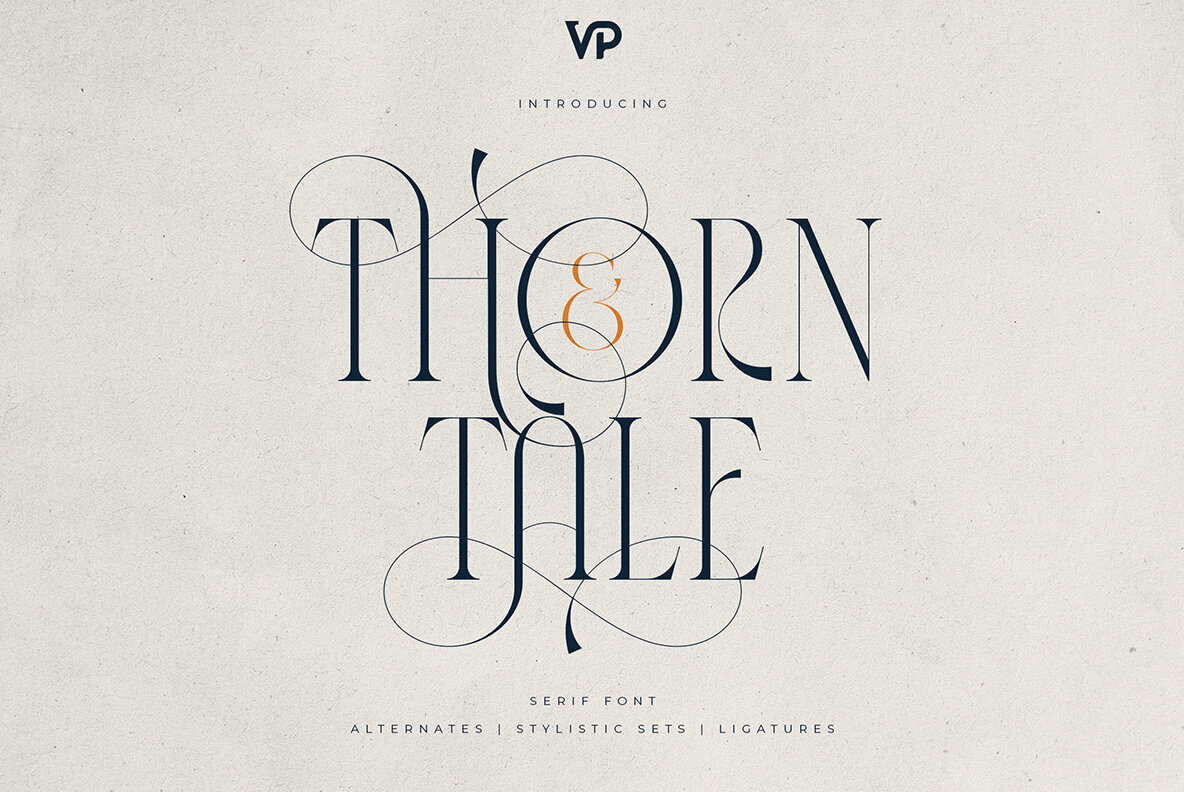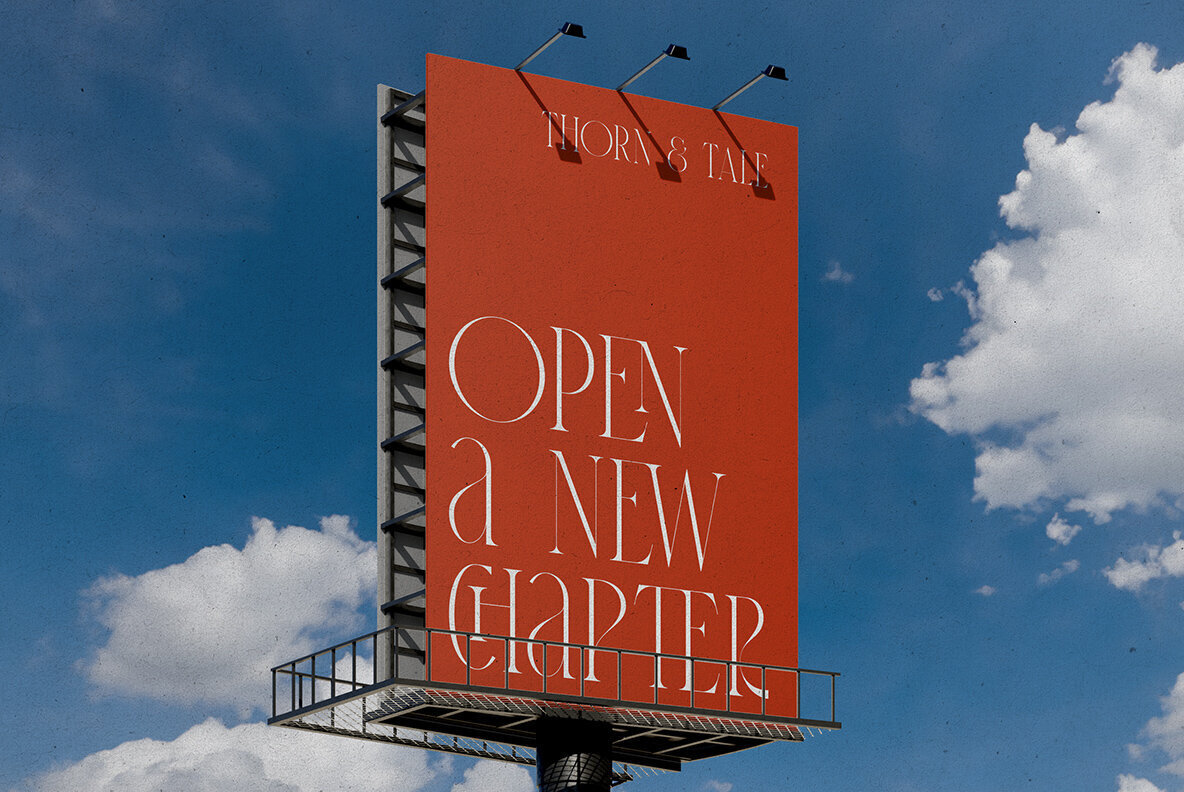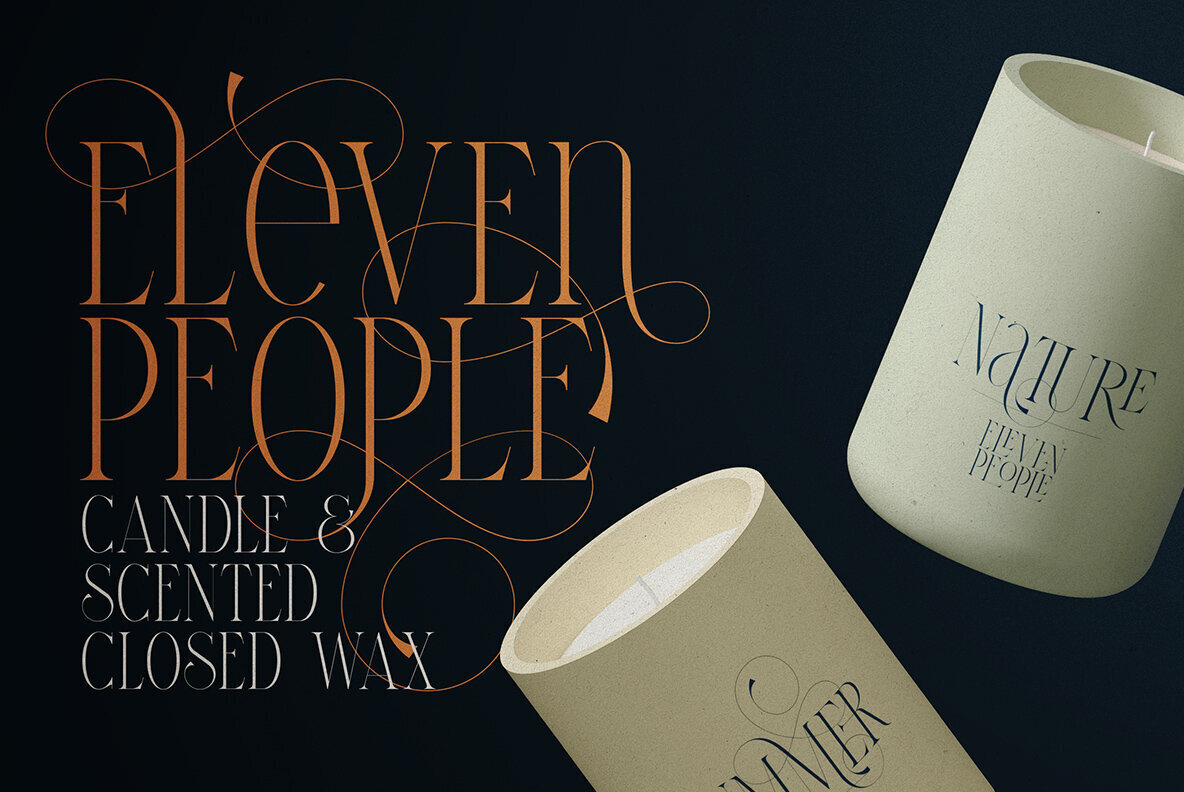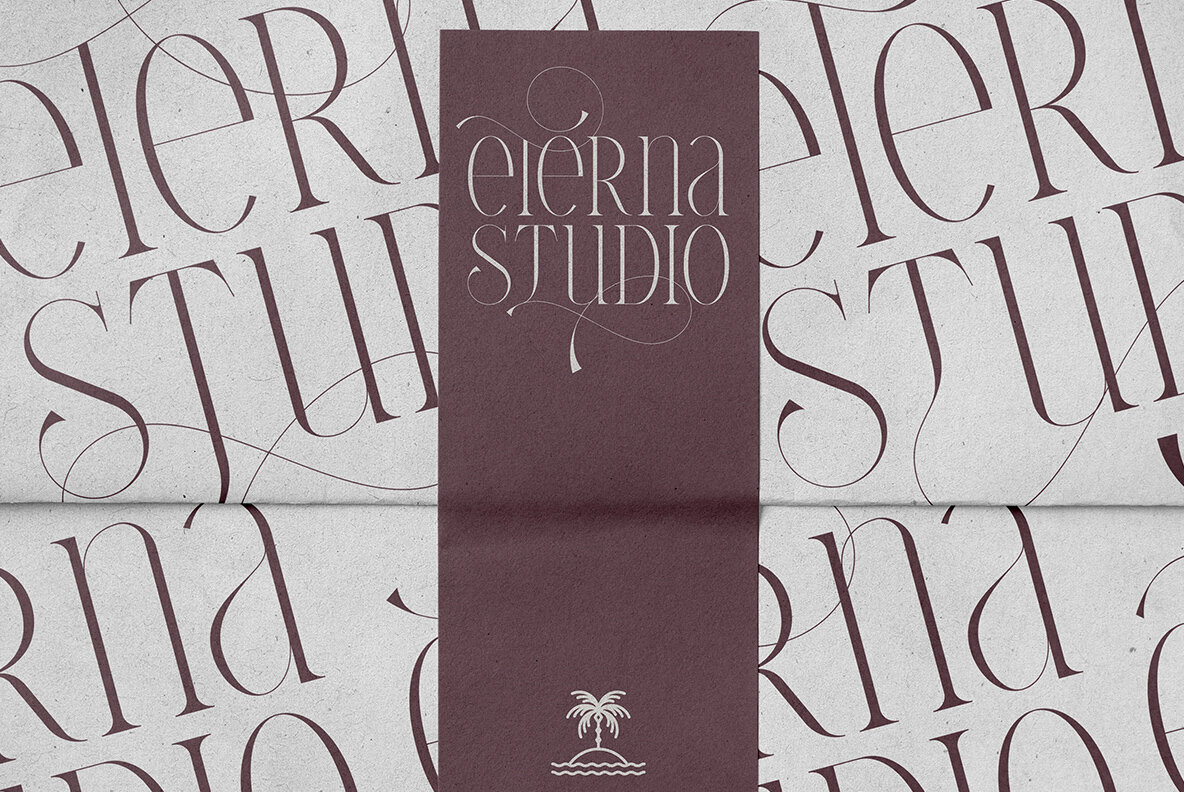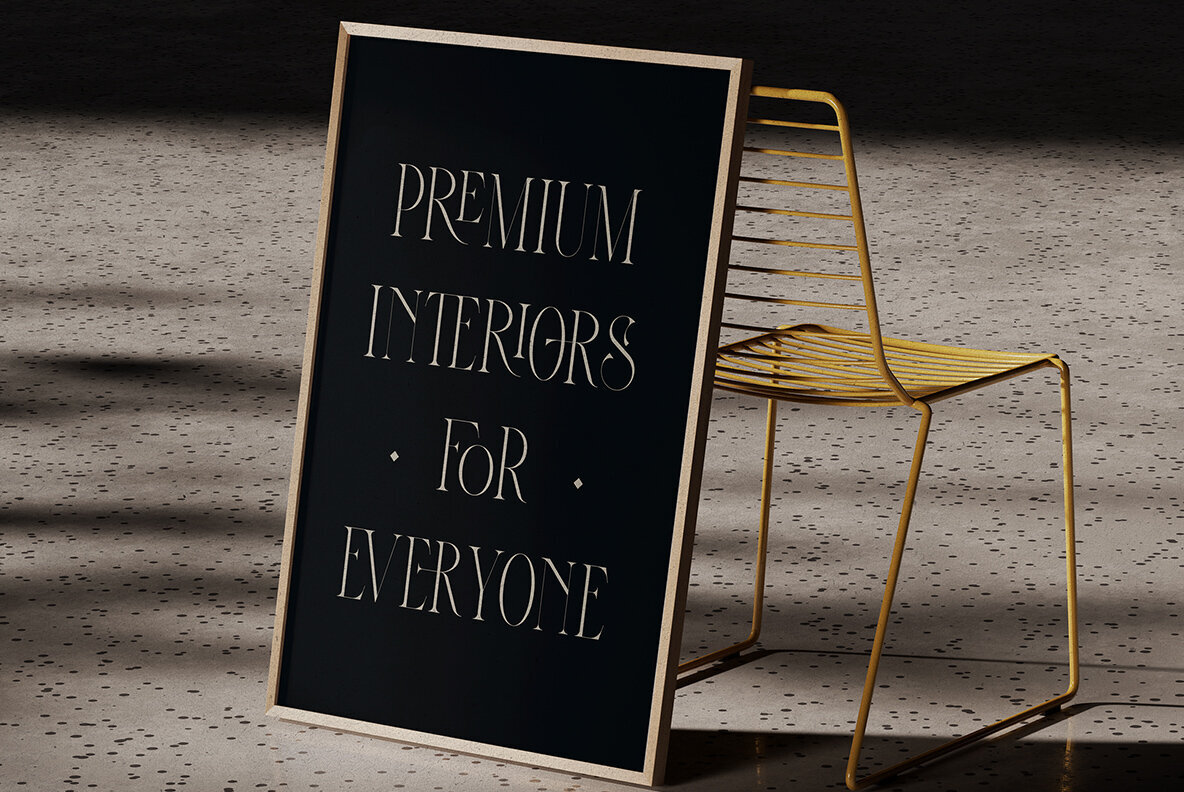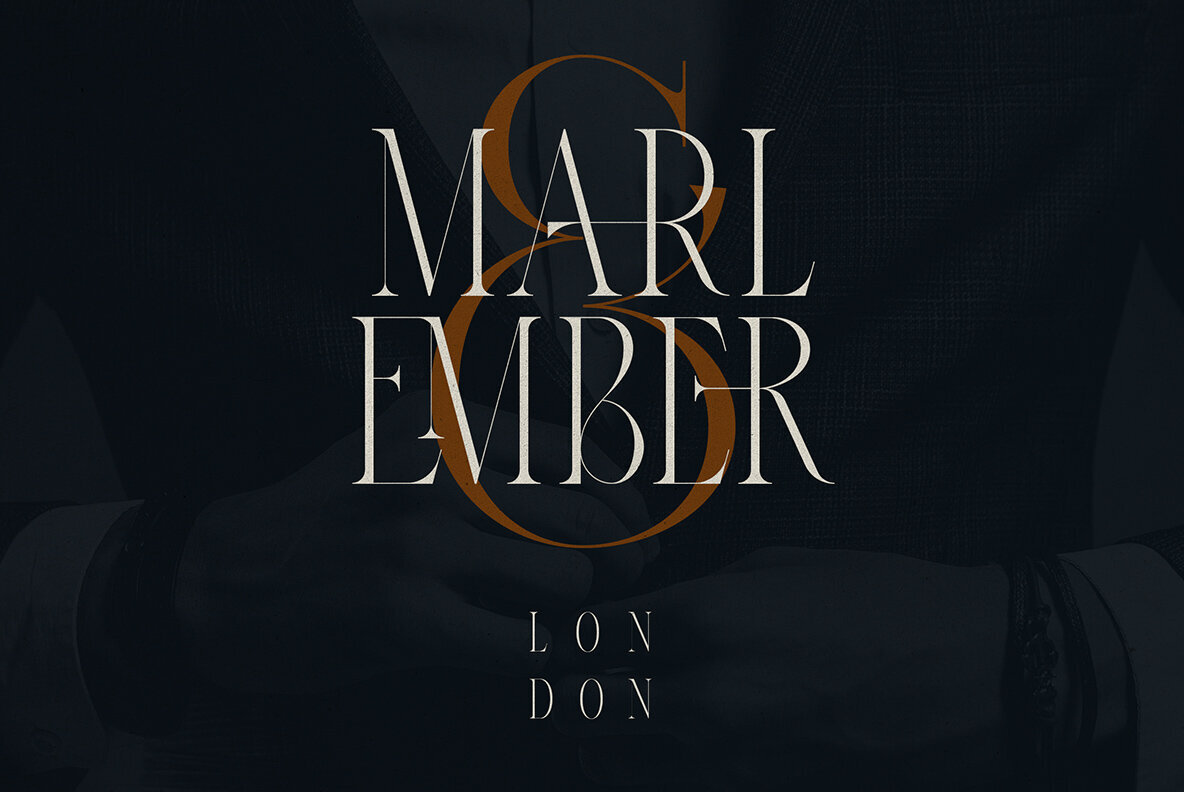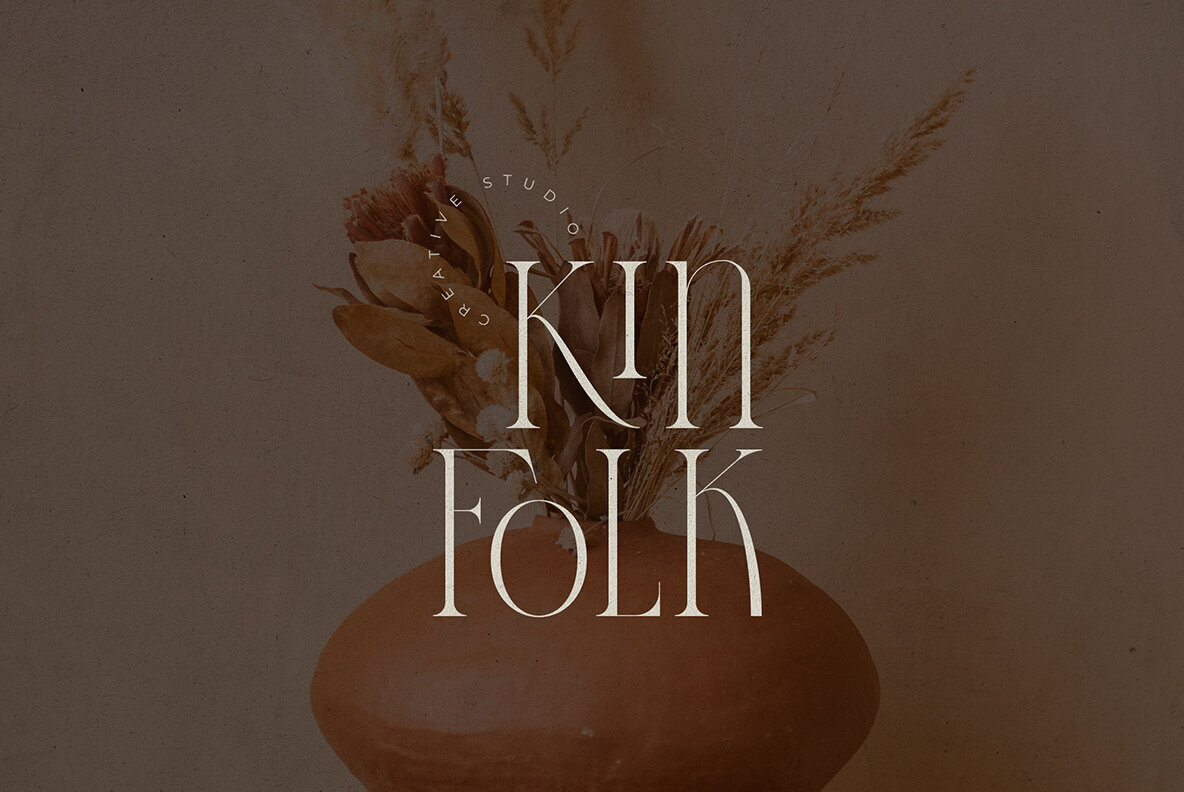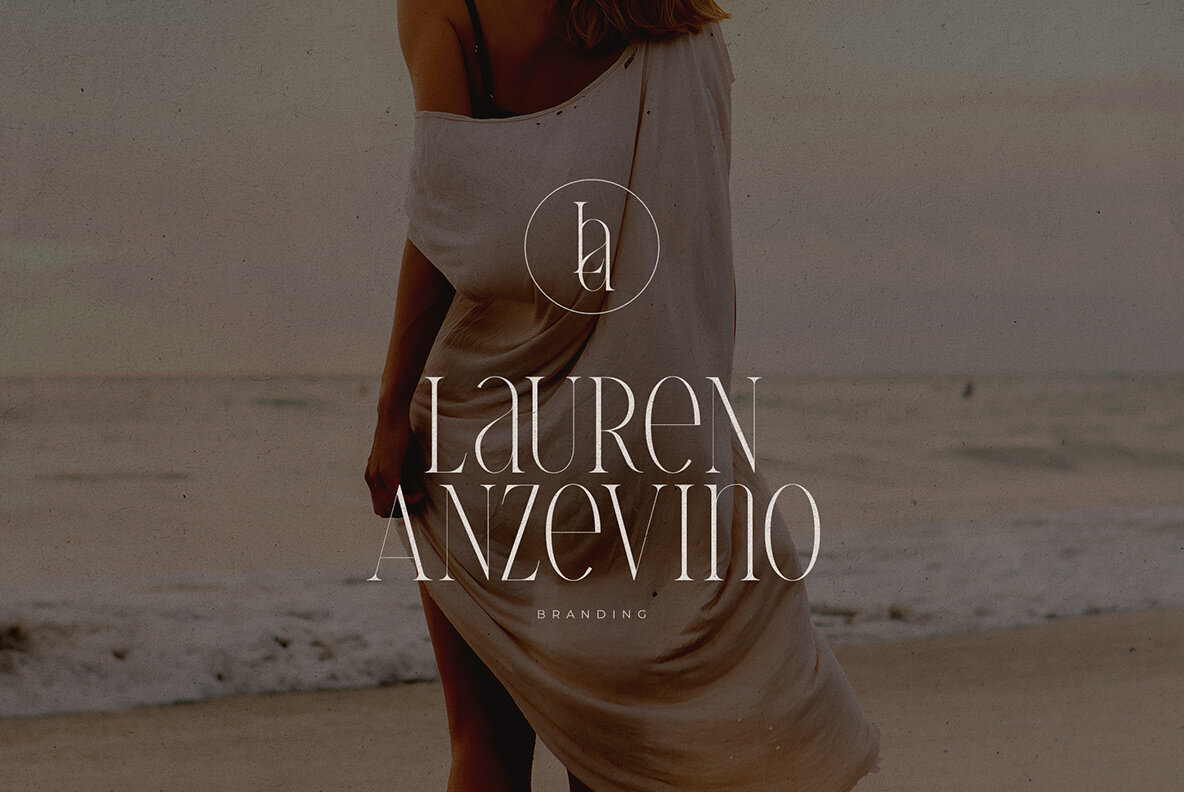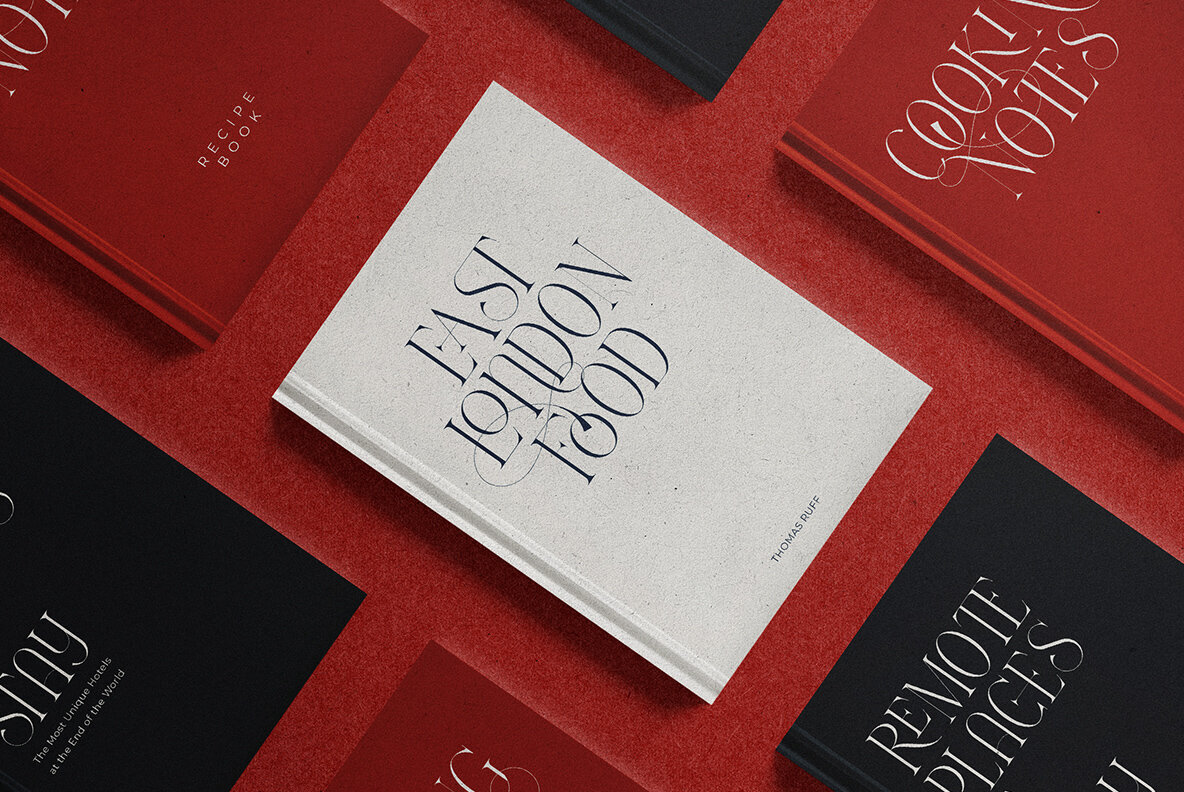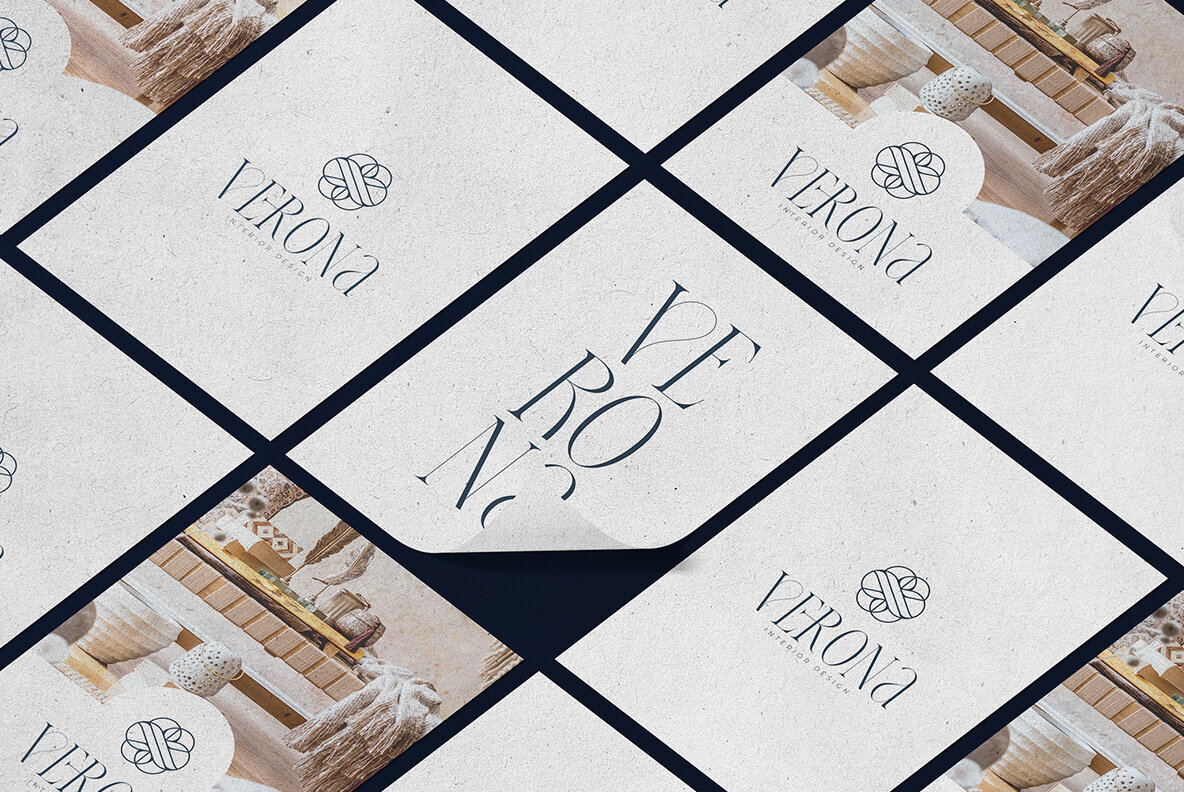
Thorn and Tale Font
Introducing Thorn and Tale, a striking high-contrast serif font that merges timeless elegance with modern sophistication. Ideal for luxury branding, editorial design, packaging, and making bold typographic statements, this typeface offers a versatile aesthetic that is both classic and contemporary. Each glyph is meticulously crafted with graceful curves and elongated serifs, promising a refined look wherever beauty in words is paramount. Gain full creative control with Thorn and Tale's diverse stylistic choices—from delicate swashes to commanding uppercase ligatures. Accessing alternates in Adobe Creative Suite is simple: utilize the Glyphs panel in InDesign or Illustrator, and the same panel in Photoshop to seamlessly integrate these features into your designs. Please note that mock-ups and backgrounds are for presentation only and are not included.Thorn and Tale: Elegance and Drama in Serif